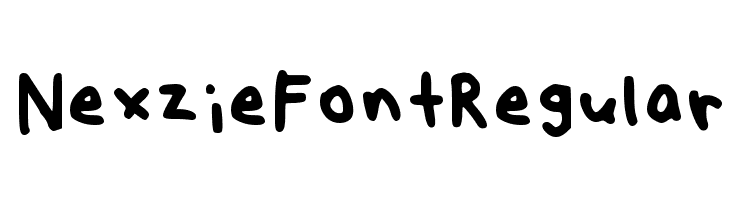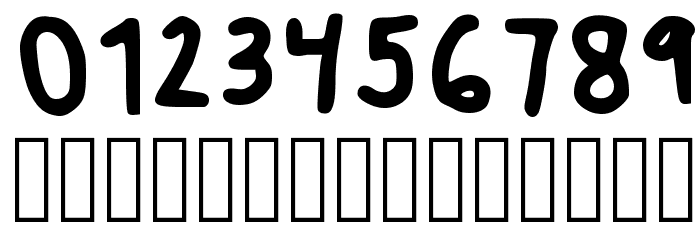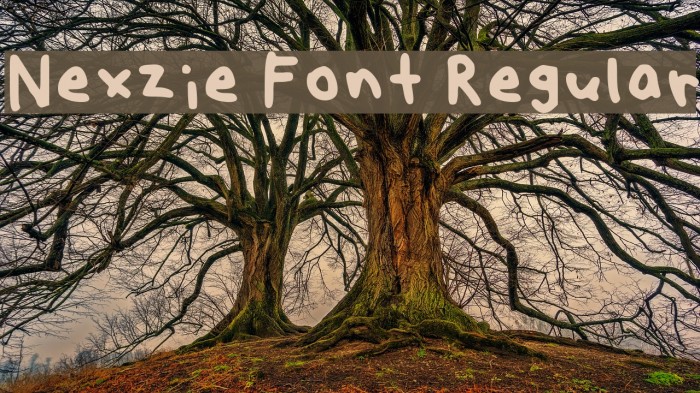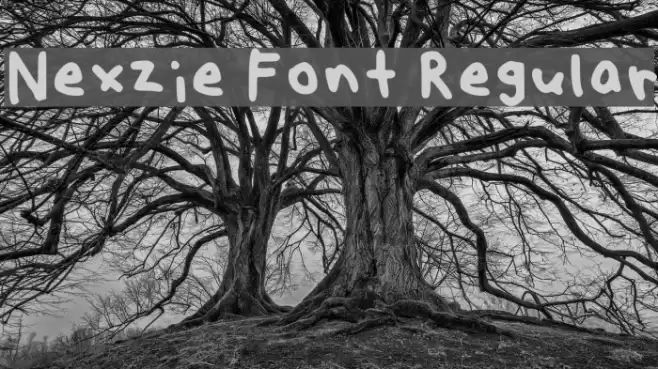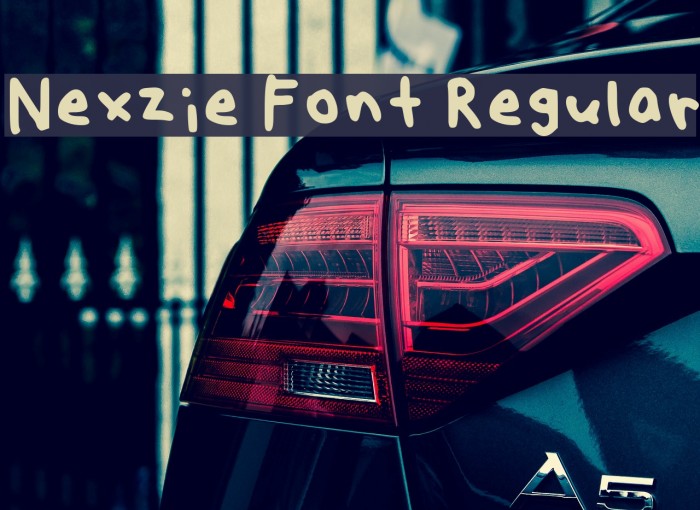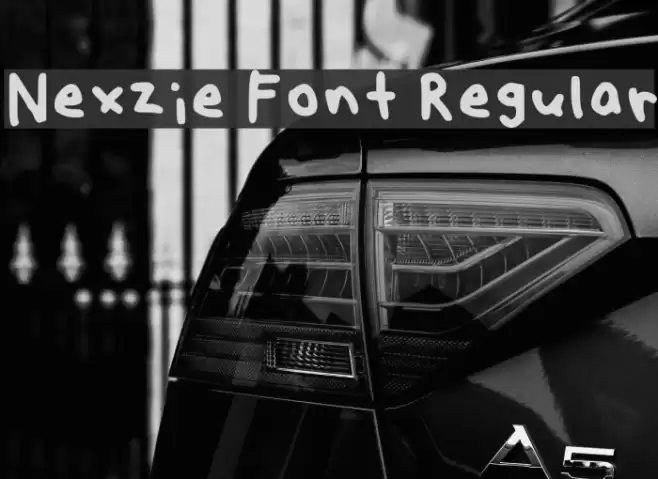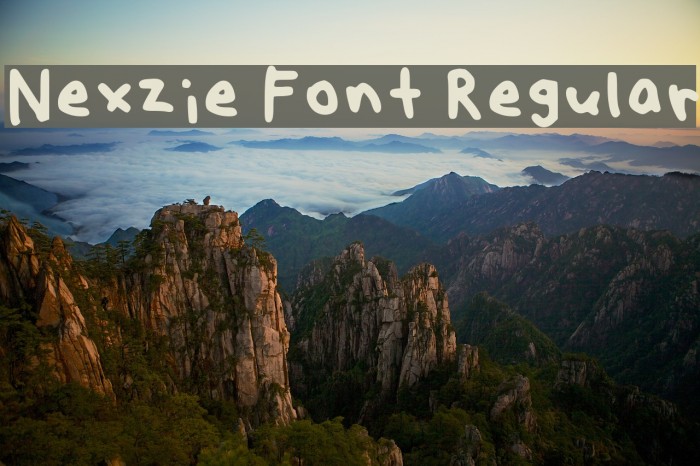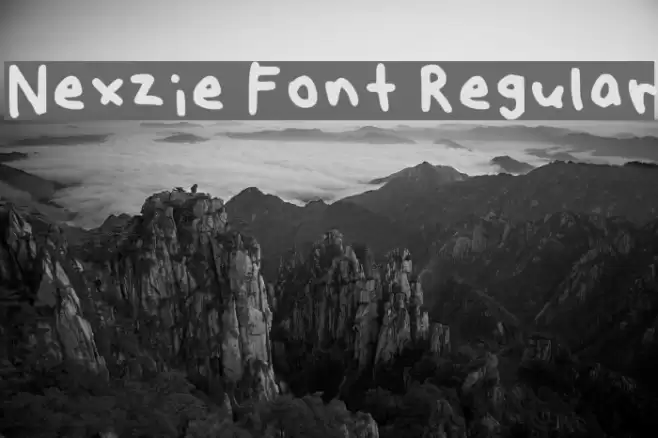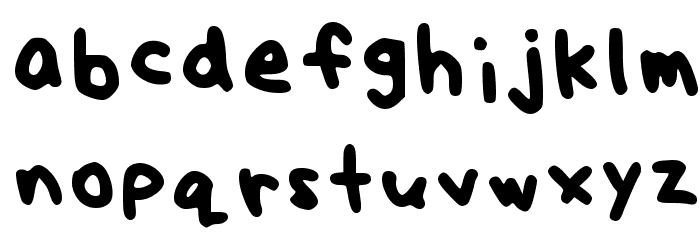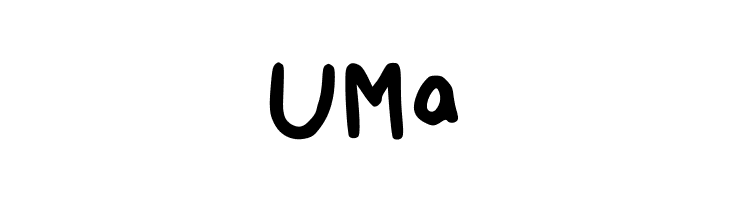
Nexzie Font Regular Font
This playful and whimsical font features a handwritten style with rounded edges and a casual, informal appearance. The characters are bold and slightly irregular, giving them a friendly and approachable feel. The uppercase and lowercase letters maintain a consistent style, with a slight slant that adds to the font's dynamic nature. The numbers are easy to read, and the overall design is cohesive, making it suitable for creative projects. The font's unique personality makes it stand out, while still being legible and versatile for various uses.
A playful, handwritten font with bold, rounded characters and a casual style.
• Proposed Projects: Ideal for children's books, greeting cards, playful branding, and social media graphics.
• Category: Handwritten
• Overall Style: Playful
• Use Case: Logos, Headlines, Informal Text